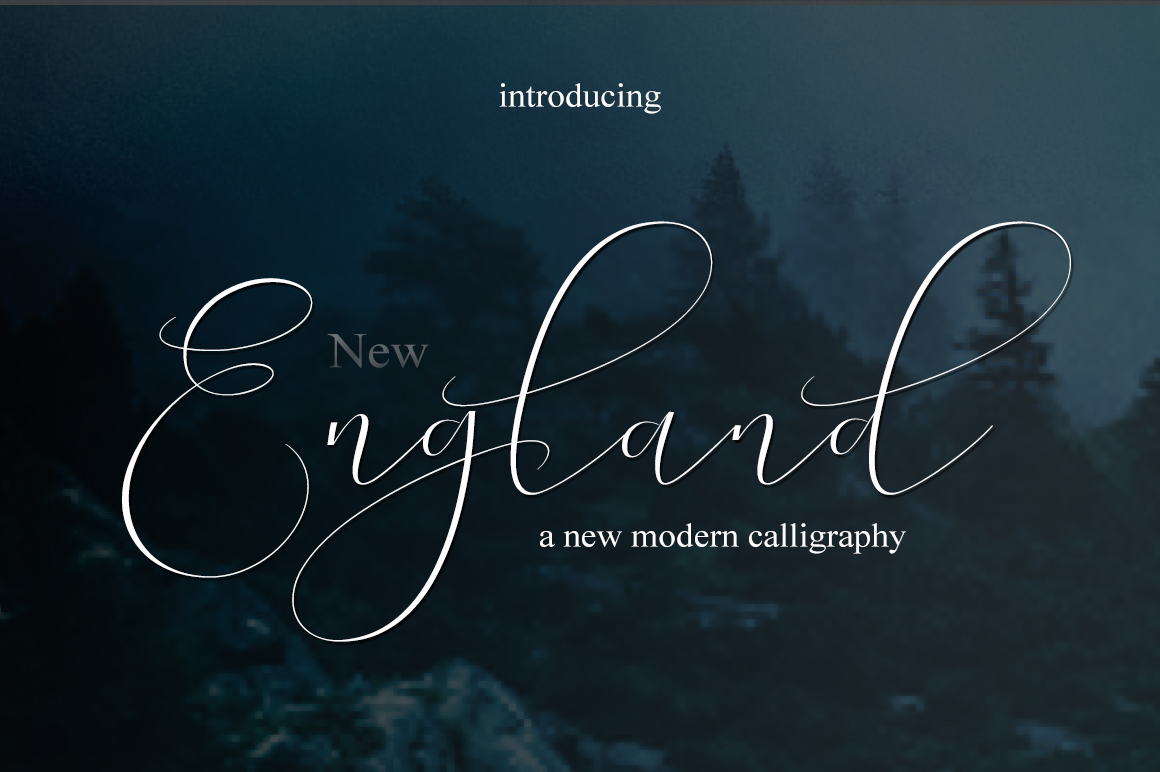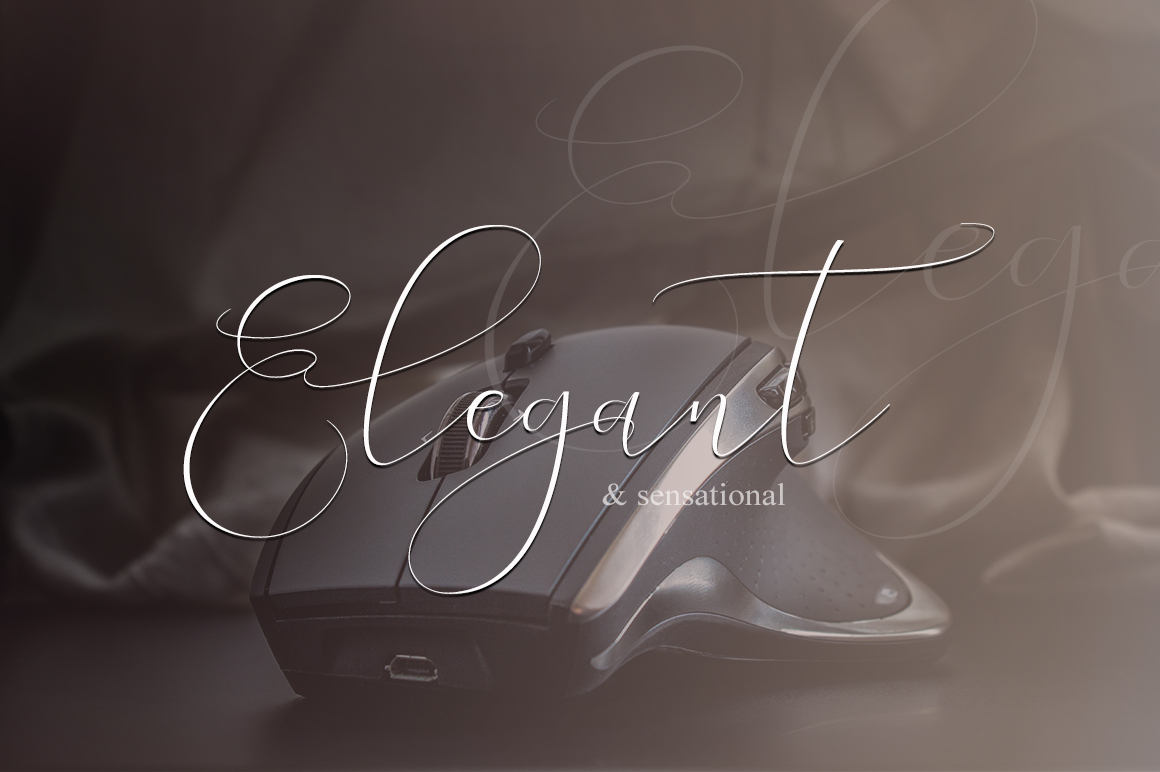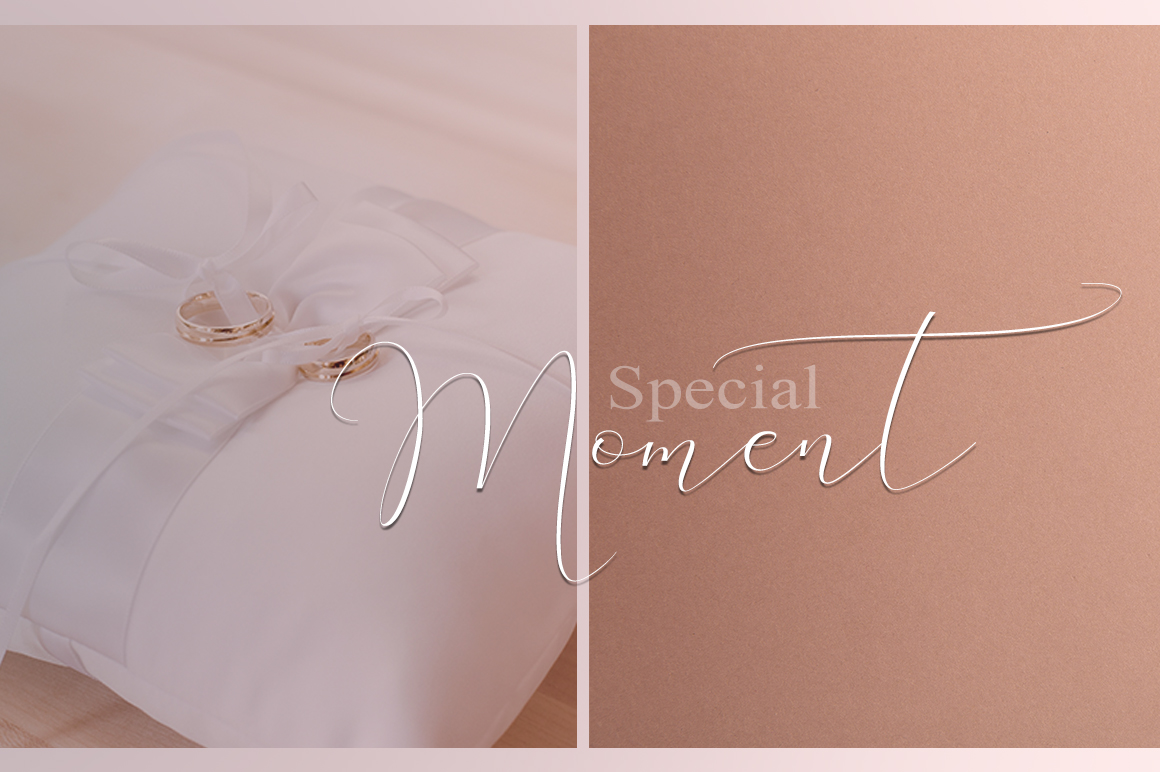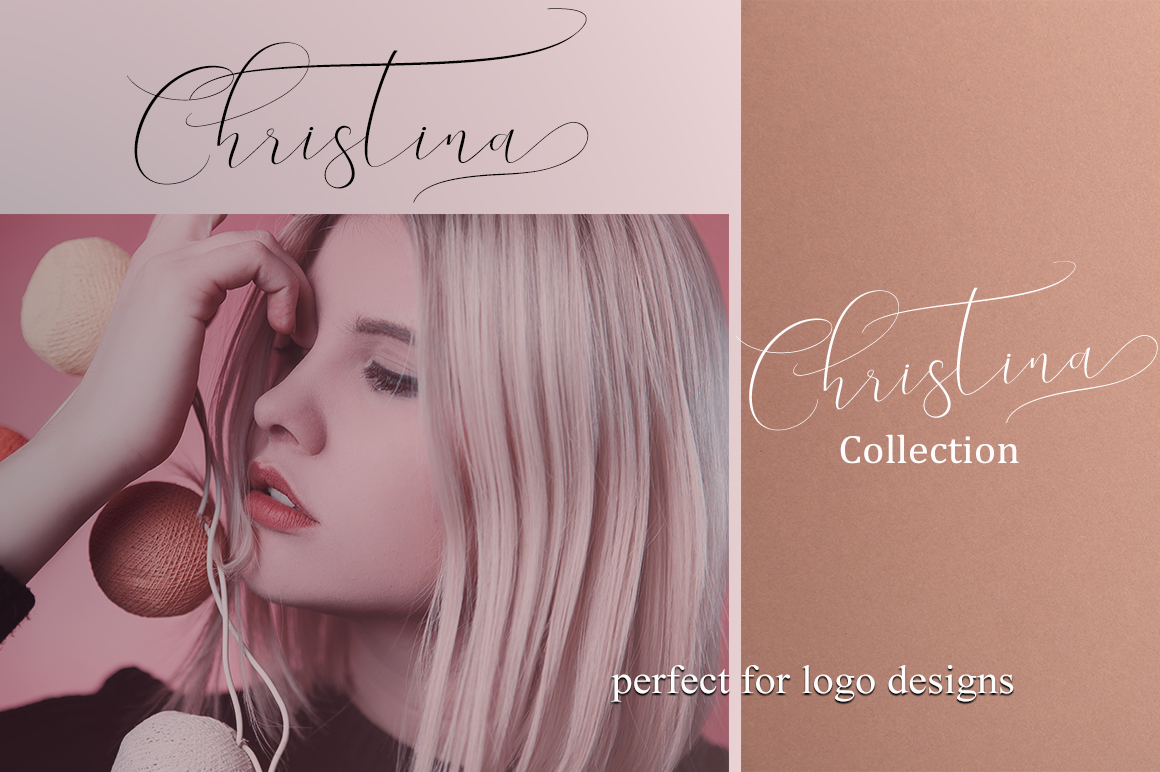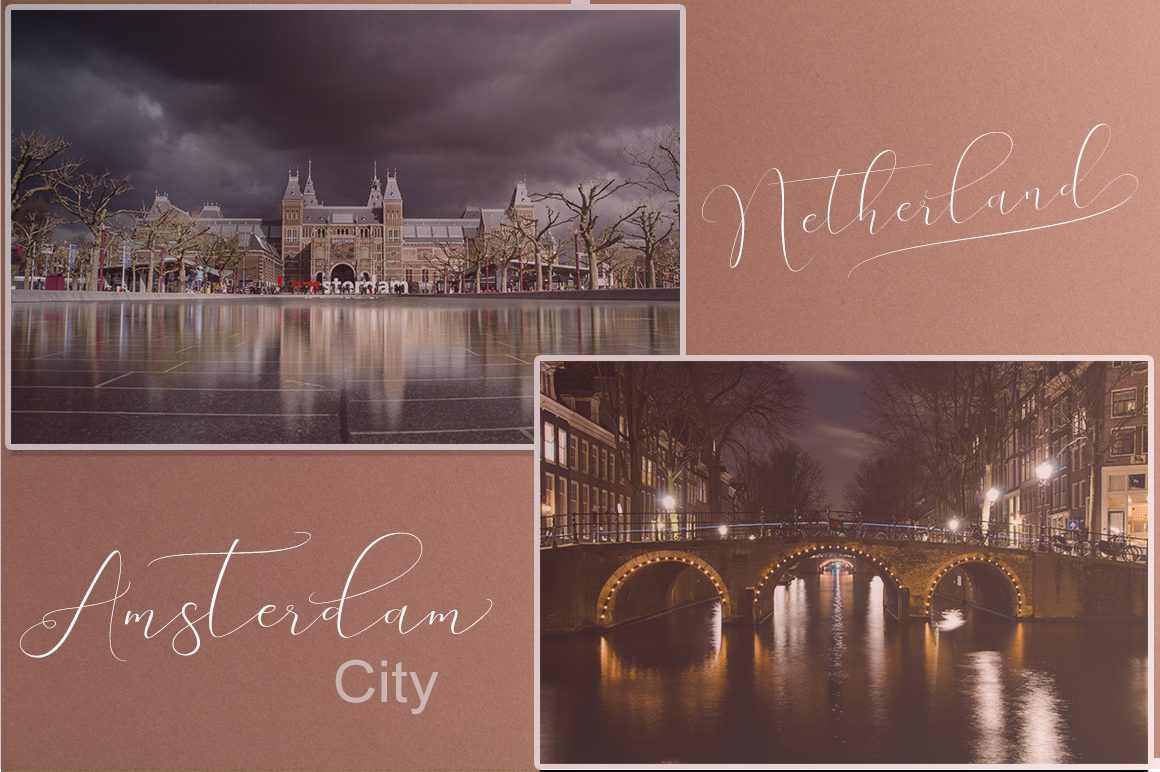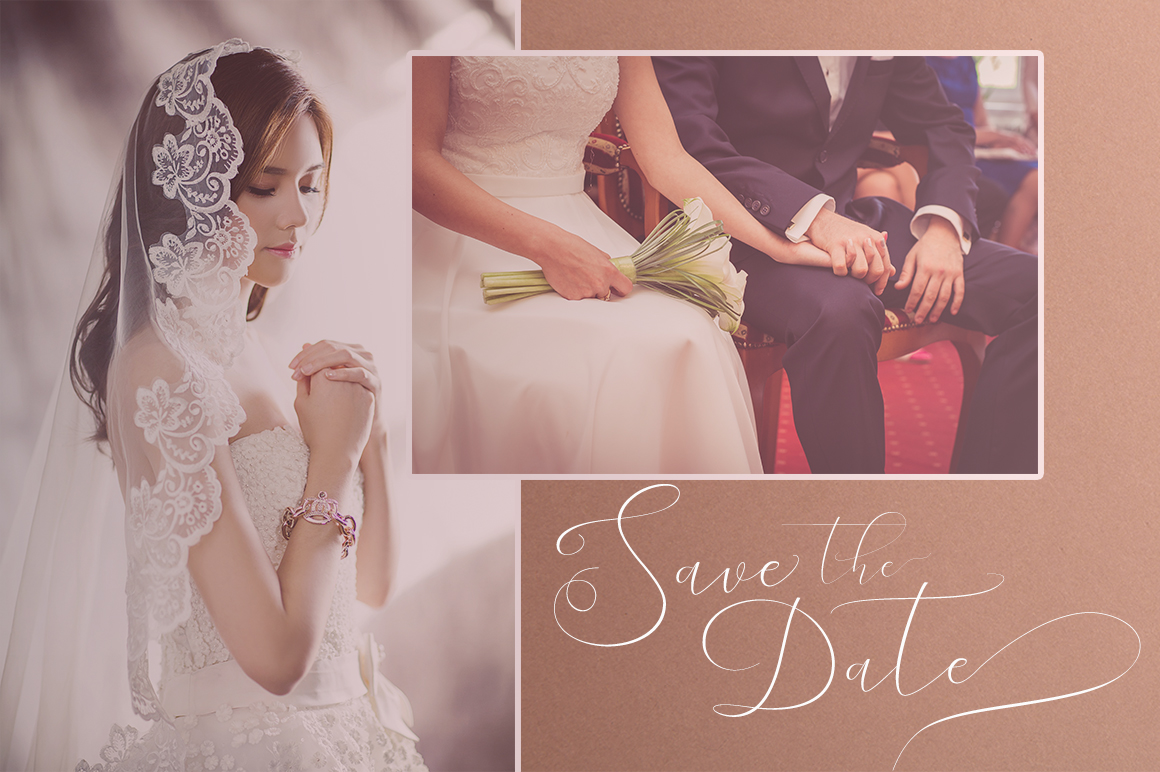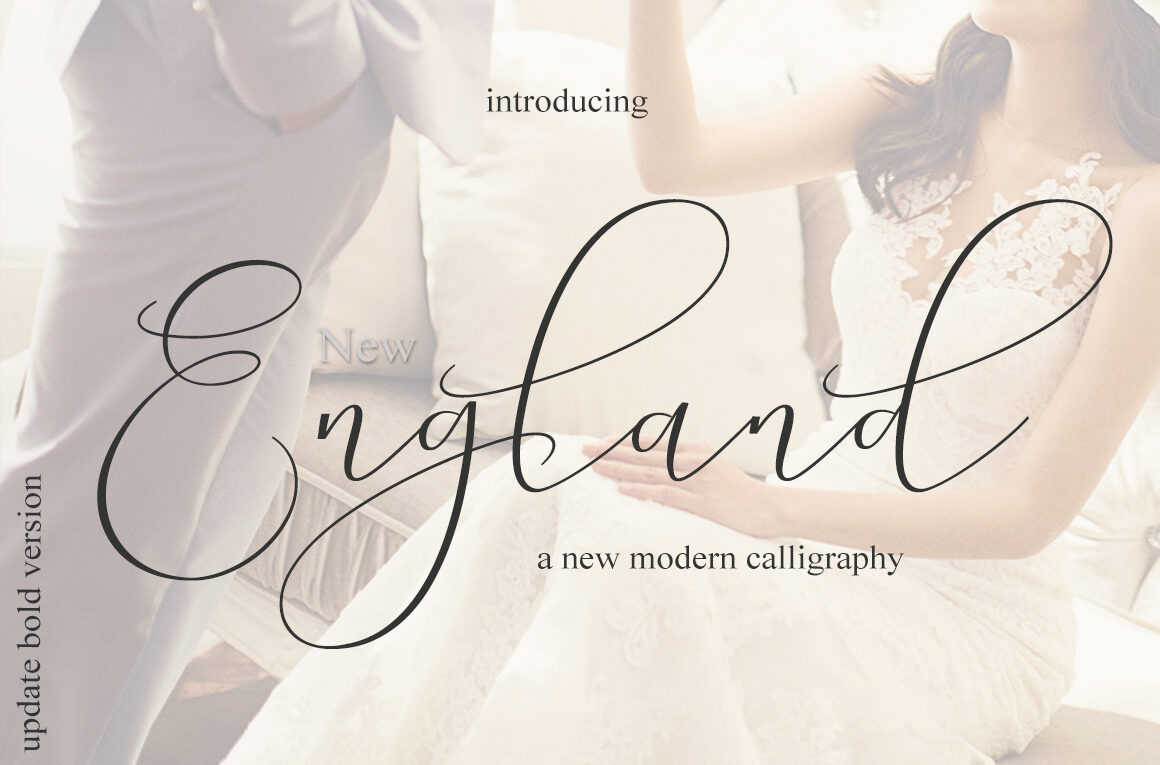
Discover the Elegance of England Font: A Modern Handwritten Script
Are you a designer or crafter looking for a font that exudes romance and sophistication? Look no further than the England Font, a beautiful handwritten script that is perfect for wedding invitations, romantic stationery, and other special occasions. With its modern and sensible style, this font is sure to elevate your designs and make them truly unforgettable.
What is England Font?
England Font is a carefully crafted handwritten script that boasts a modern and elegant style. Its flowing lines and delicate curves make it an ideal choice for designs that require a touch of romance and whimsy. Whether you’re creating wedding invitations, save-the-date cards, or other special occasion stationery, this font is sure to impress.
Key Features of England Font
• Handwritten Script: England Font is a genuine handwritten script, giving it a personal and unique touch that sets it apart from more traditional fonts.
• Modern and Sensible Style: This font boasts a modern and sensible style that makes it perfect for a wide range of design applications.
• Over 670 Glyphs: England Font comes equipped with over 670 glyphs, giving you a vast range of characters and symbols to work with.
• Ideal for Wedding and Romantic Invitations: The romantic and elegant style of England Font makes it an ideal choice for wedding invitations, save-the-date cards, and other special occasion stationery.
Why Choose England Font?
So why should you choose England Font for your next design project? Here are just a few reasons why this font stands out from the crowd:
• Unique and Personal Touch: England Font’s handwritten script gives it a unique and personal touch that will make your designs stand out.
• Versatile: With over 670 glyphs, England Font is incredibly versatile and can be used for a wide range of design applications.
• Elegant and Sophisticated: The modern and sensible style of England Font makes it perfect for designs that require a touch of elegance and sophistication.
How to Use England Font in Your Designs
England Font is incredibly easy to use and can be incorporated into a wide range of design applications. Here are a few ideas to get you started:
• Wedding Invitations: Use England Font to create beautiful and elegant wedding invitations that will set the tone for your special day.
• Save-the-Date Cards: England Font is perfect for save-the-date cards, giving your loved ones a sneak peek into your special day.
• Romantic Stationery: Use England Font to create romantic stationery, including letterheads, journals, and more.
Tips and Tricks for Getting the Most Out of England Font
Here are a few tips and tricks for getting the most out of England Font:
• Experiment with Different Sizes and Colors: England Font looks great in a variety of sizes and colors, so don’t be afraid to experiment and find the perfect combination for your design.
• Pair with Other Fonts: England Font pairs beautifully with other fonts, so try combining it with a bold or sans-serif font to add contrast and interest to your design.
• Use it for Headings and Titles: England Font is perfect for headings and titles, giving your designs a touch of elegance and sophistication.
England Font is a beautiful and elegant handwritten script that is perfect for designers and crafters looking to add a touch of romance and sophistication to their designs. With its modern and sensible style, over 670 glyphs, and versatility, this font is sure to become a staple in your design toolkit. So why wait? Download England Font today and start creating stunning designs that will leave a lasting impression.